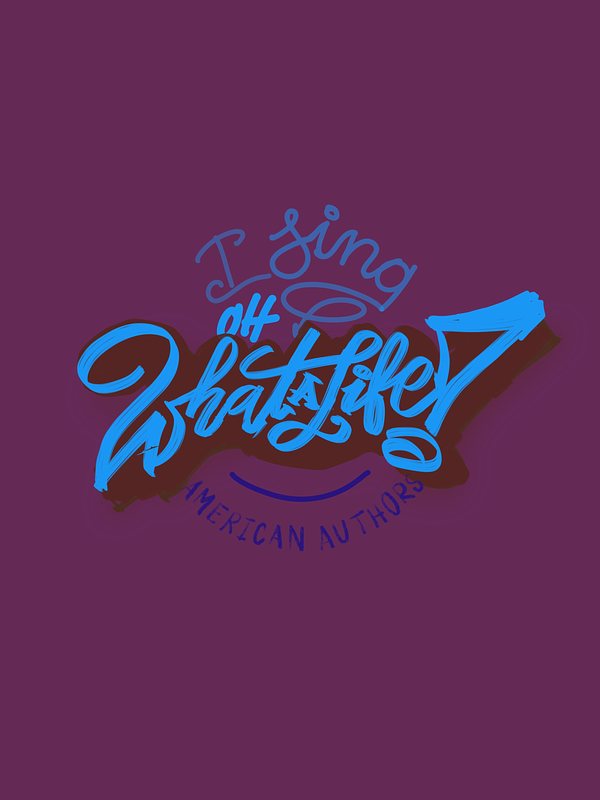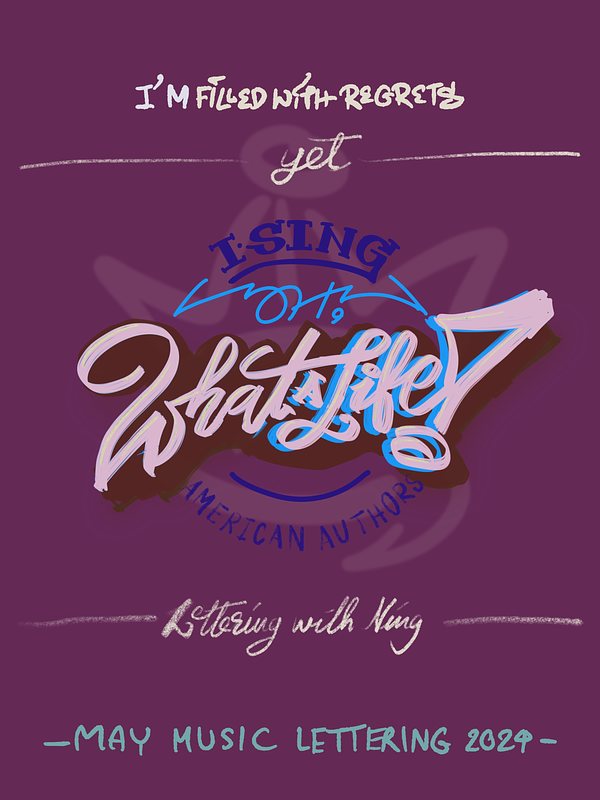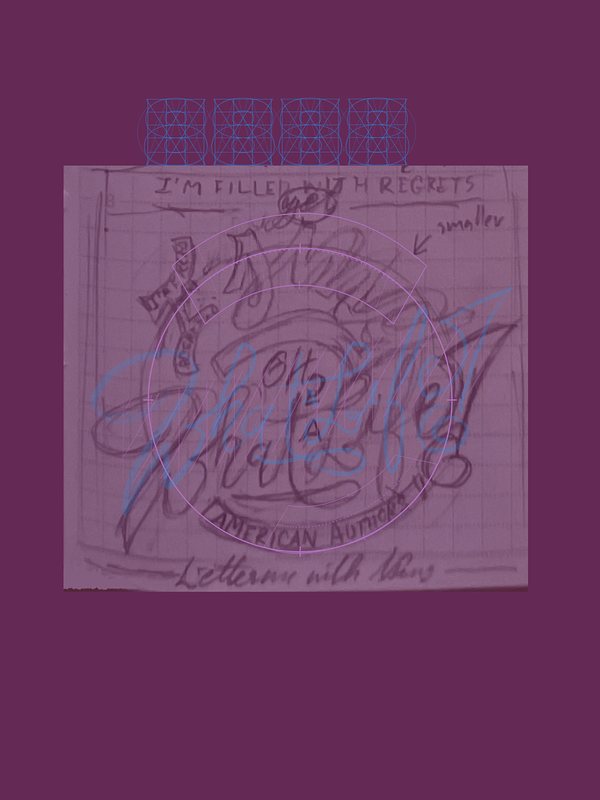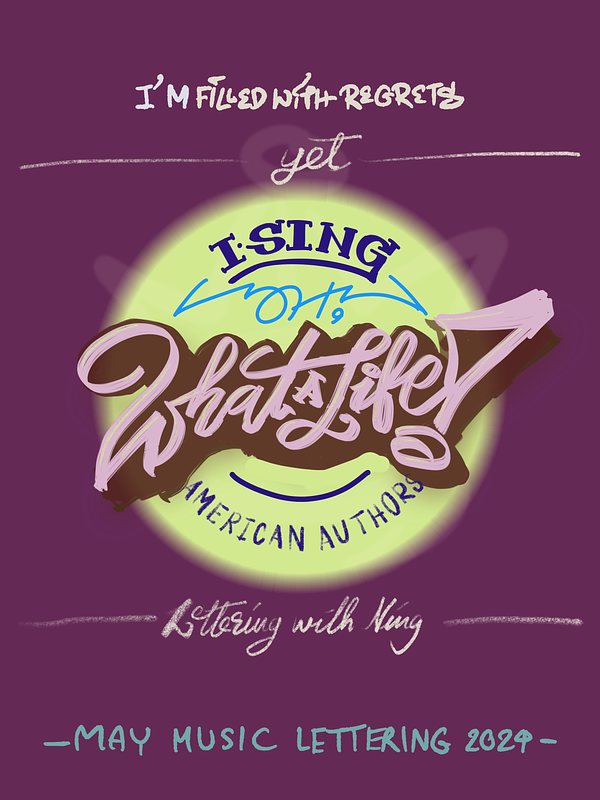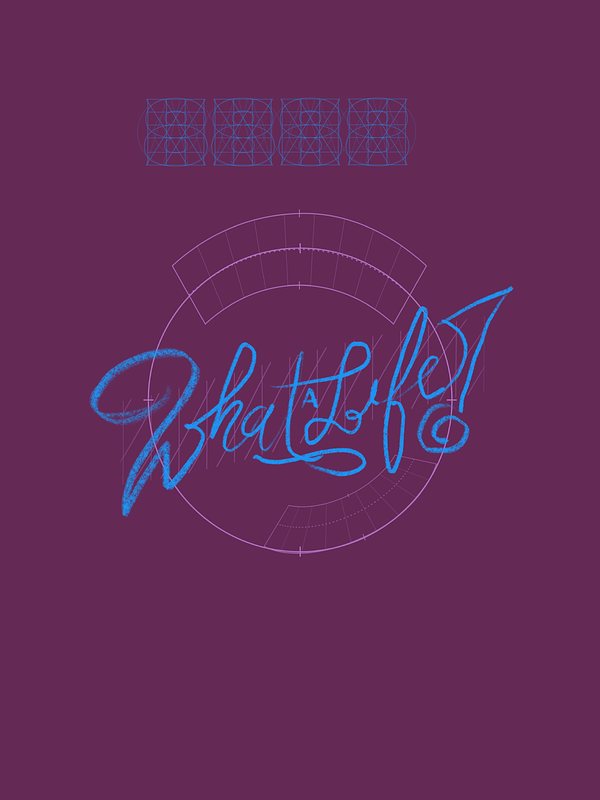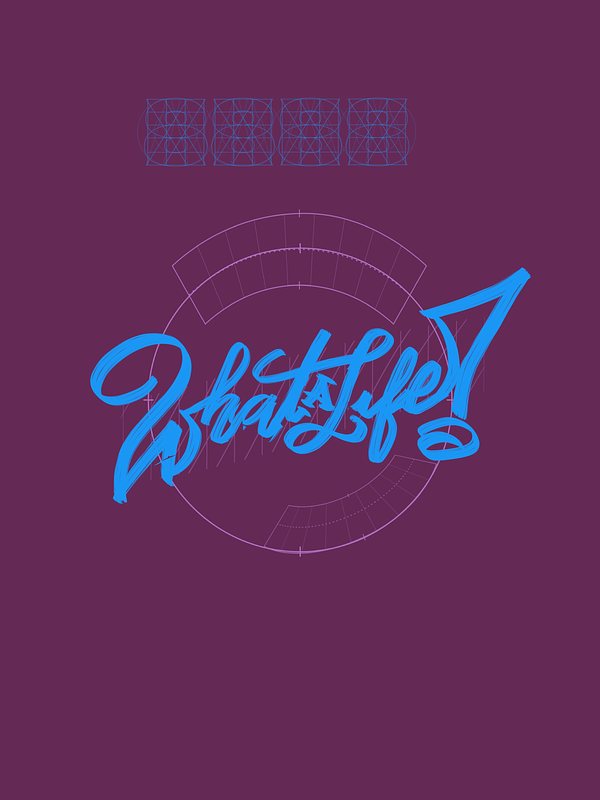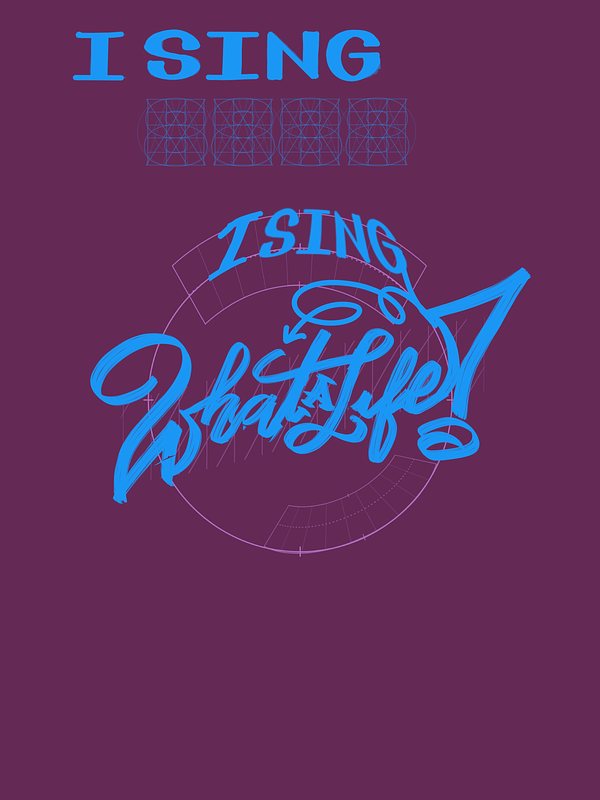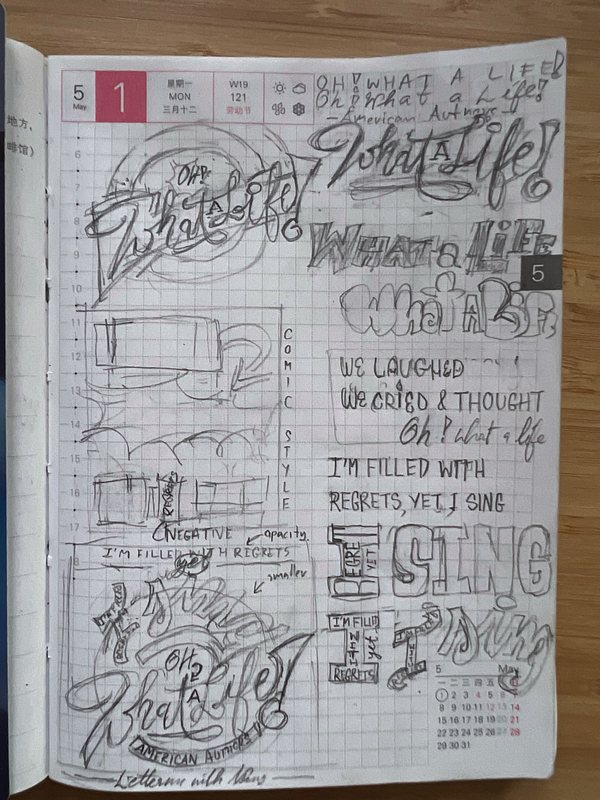
The Lyrics Lettering 00001-Oh, What a Life by American Authors
My Lettering Design for the song "Oh, What a Life" by American Authors
"Oh, What a Life" by American Authors is hands down one of my favorite songs ever. In fact, the whole album, also named "Oh, What a Life", is my favorite of all time. It's the type of album where every track flows so nicely, that you never even think about skipping a song.
This song, in particular, closes the album with a lot of emotion and holds a special place in my heart. Every time I hear it, I can't help but get a little teary-eyed with a huge grin on my face. The message is incredibly powerful–life is a mixture of all the good and bad. It's a reminder to embrace the ups and downs, reminisce the regrets, and celebrate the glories, all while recognizing that every moment has led us to where we are today. And through it all, I get to say, "Hey, this is my life, And, what a life it's been."
The unwavering optimism of this song, and the whole album, has helped me during difficult times, bringing not just happiness but also gratitude and pride for the life I've led. I would love to have this song played at my funeral as a final anthem.
"I'm filled with regrets, yet I sing, Oh, what a life!"
Alright, so let me walk you through my lettering practice for the song Oh What A Life.
First off, I experimented with different lettering styles that would complement the phrase "What A Life". I settled on a script typeface because it felt like life's natural flow. Adding some calligraphy flair to bounce the letters around gave it that extra liveliness, making it more dynamic, mirroring life itself.
Then I tried out some compositions. I toyed with a comic-style layout before deciding it wasn't the vibe I was going for and chose to go with the idea of creating a symbolic logo, making the words pop.
Next, I got playful with the words. I even tried incorporating 'regret' into the letter I, inspired by the lyrics 'I'm filled with regrets.' The idea of "I" got filled with the word "regrets" was intriguing, but readability became a concern once I started designing it.
Moving on to the overall design process, I digitized the initial sketch and used letter and grid builders to get more precision.
I fine-tuned each letter, working to achieve that perfect balance and flow so it didn't look wonky in terms of letter spacing and angles.
Then came to the word "I Sing". Initially, I considered something like Lobster font, but it ended up feeling too similar to the script style of What A Life. So instead, I went for bold, all caps, to give it a visual contrast and a distinct punch.
I tried to add some perspective to the word "I see", but it looked weird, so I tilted it into a circle instead of a curve. Then, I worked on making it all cohesive, filling out every letter around the circle, and testing various versions to strike a balance between readability and aesthetics.
I initially thought I'd go for a line work with the vector version. But fixing all those little details took way longer than expected. So, I had to color the sketch and call it a day. I doubt I'll make any vector versions for this challenge going forward. LOL.
I wanted a color palette that was vibrant but not too in your face. I'm still not in love with it, but I ran out of time for the day, so it is what it is.
Despite some flaws, I'm happy with the outcome. Not overly proud, but good enough for a half-day of work.
That wraps up day one of my May Music Lettering challenge, a little project I set for myself this month.
P.S. It was funny that, only after writing down the process, I realized I wrote the lyrics wrong, so I had to do a quick fix before posting, lol.